2 Google Fonts Similar to Golden Metafor
Golden Metafor is a classy cold serif typeface. It is well used for branding opportunities and can be used for logos, labels, and just about anything else that can be printed.
Needless to say it is a very unique font. It was pretty tough to find anything that looked similar. So no need to say that I did not find an exact match.
After searching through the Google Fonts library, I was able to find two fonts that are pretty similar and would work as a decent alternative for any project on a budget.
What Google Fonts are Similar to Golden Metafor?
The best Google Font alternatives that are similar to Golden Metafor are:
- Gravitas One
- Ultra
Either one of these fonts would make for a pretty good alternative. So let's cover what they have in common and what their differences are.
Gravitas One
Gravitas One would make for a good alternative for Golden Metafor. Although it doesn't match all the letters, it does give off the same look and charm.
Since the letters are so unique, you will easily find minor differences in all the letters. However, it still brings that same type of look that is provided by Golden Metafor.
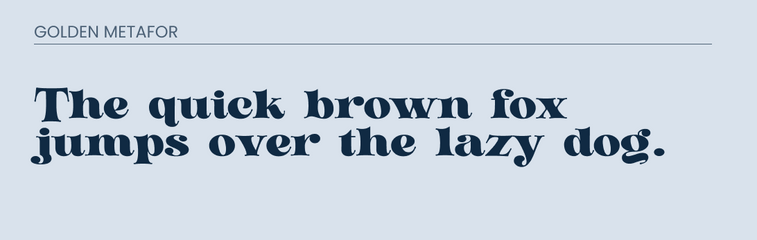
Ultra
Ultra is another decent option. It also is not going to be an exact match, but it gives a similar vibe. They both share pretty similar "f" and "a".
Final Thoughts
Either Ultra or Gravitas One would make for an ok alternative to Golden Metafor. If you are in a position to do so, then I would recommend buying the fonts from the creator. However, any of the two above would work for a project on a budget.